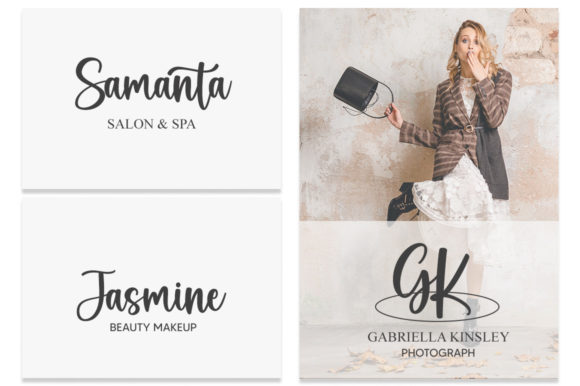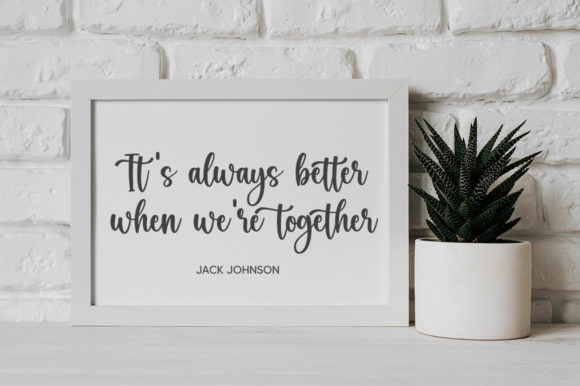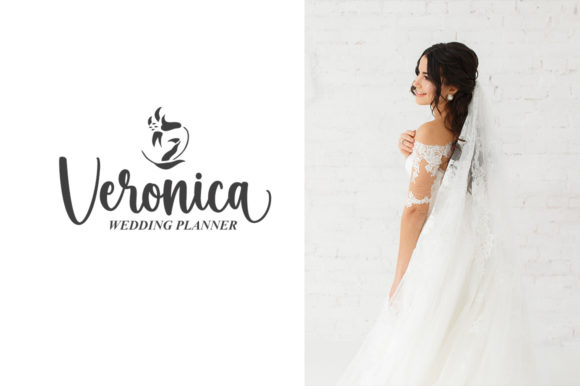
Better Together Font
Better Together is a lovely and timeless handwritten font. It is the best choice for creating eye catching logos, branding and quotes. Every letter has a unique and beautiful touch, which will make your design come alive!This product is featured in a CF Class: Applying Heat Transfer Vinyl on Aprons Using Cricut . Be sure to check it out!